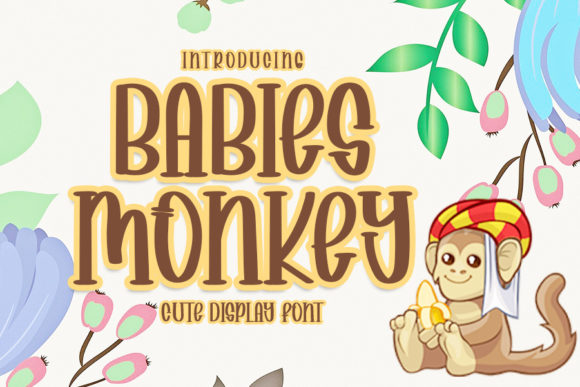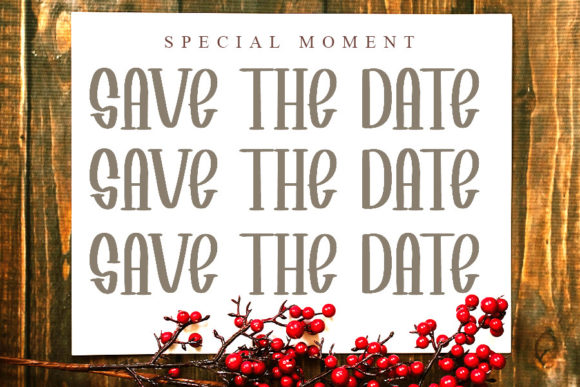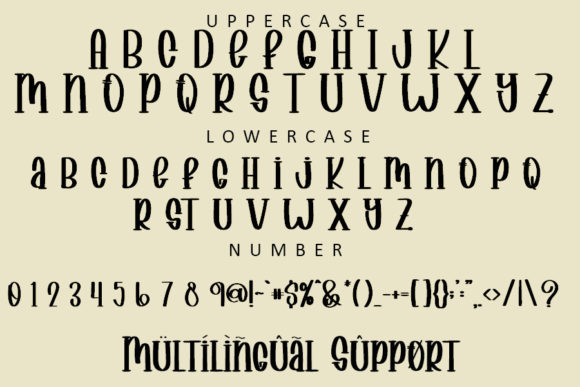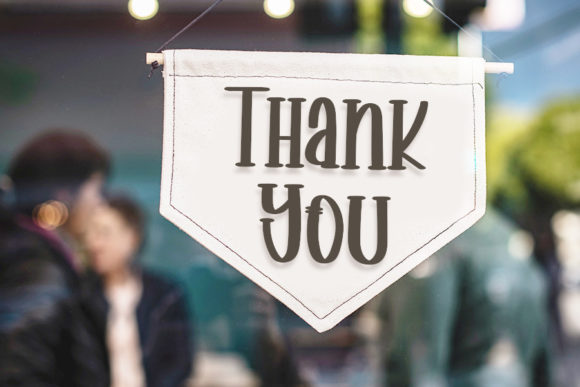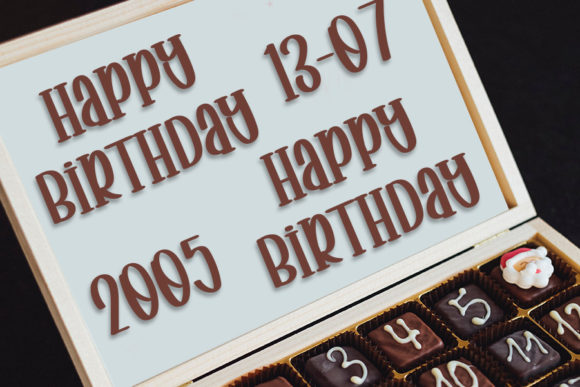
Babies Monkey Font
Babies Monkey is a fun handwritten font that sparks creativity and adds a playful touch to your designs. With its unique look, this font is perfect for creating amazing postcards, fun logos, and cute stationery.
The whimsical and energetic letterforms of Babies Monkey bring a sense of fun and excitement to your designs. Whether you’re designing postcards to spread joy and laughter, creating logos that stand out with their playful charm, or crafting adorable stationery that delights recipients, this font will add a unique and captivating element to your work.
Babies Monkey’s fun and handwritten style makes it a versatile choice for various applications. It can inspire creativity and bring a sense of childlike wonder to your designs. Use it to create postcards that evoke smiles and positive emotions. Incorporate it into your logo designs to convey a friendly and approachable brand image. And infuse your stationery with cuteness and charm that leaves a lasting impression on recipients.
Embrace the fun and unique nature of Babies Monkey and let it ignite your imagination. Incorporate this font into your projects, and you’ll see how it brings a sense of playfulness and creativity that captivates both you and your audience.